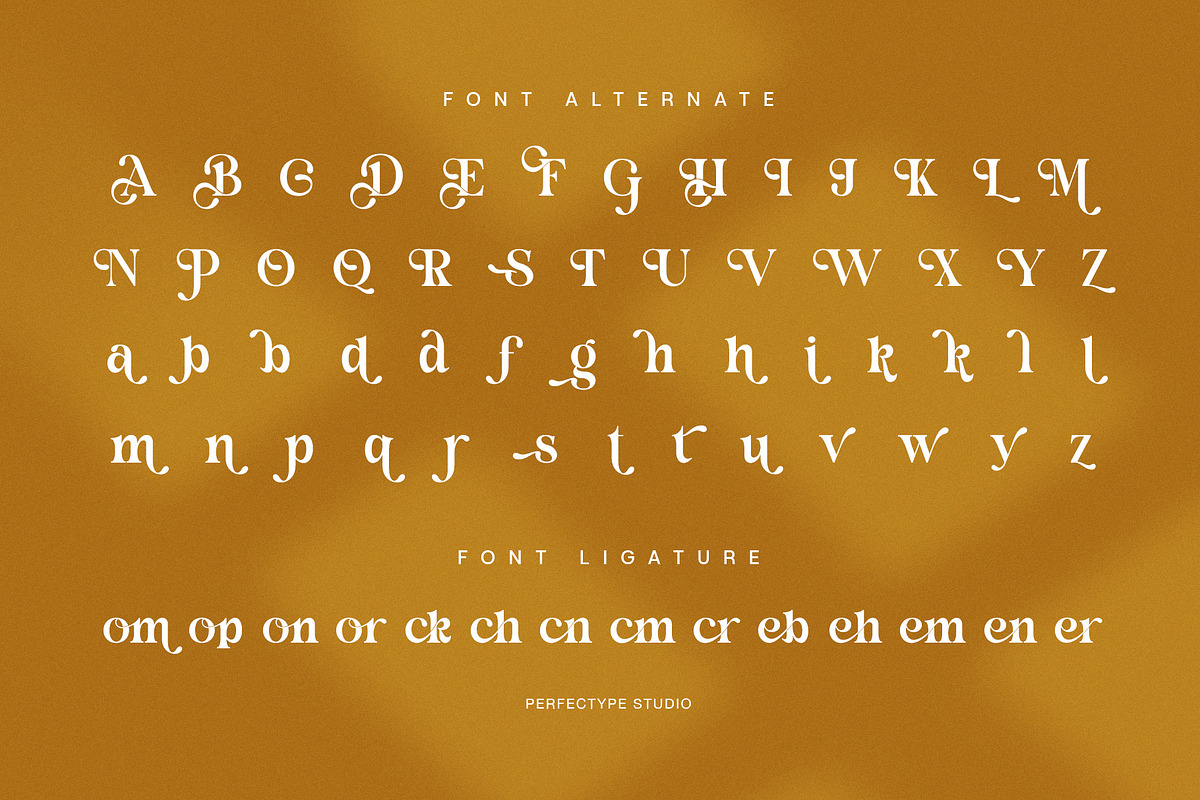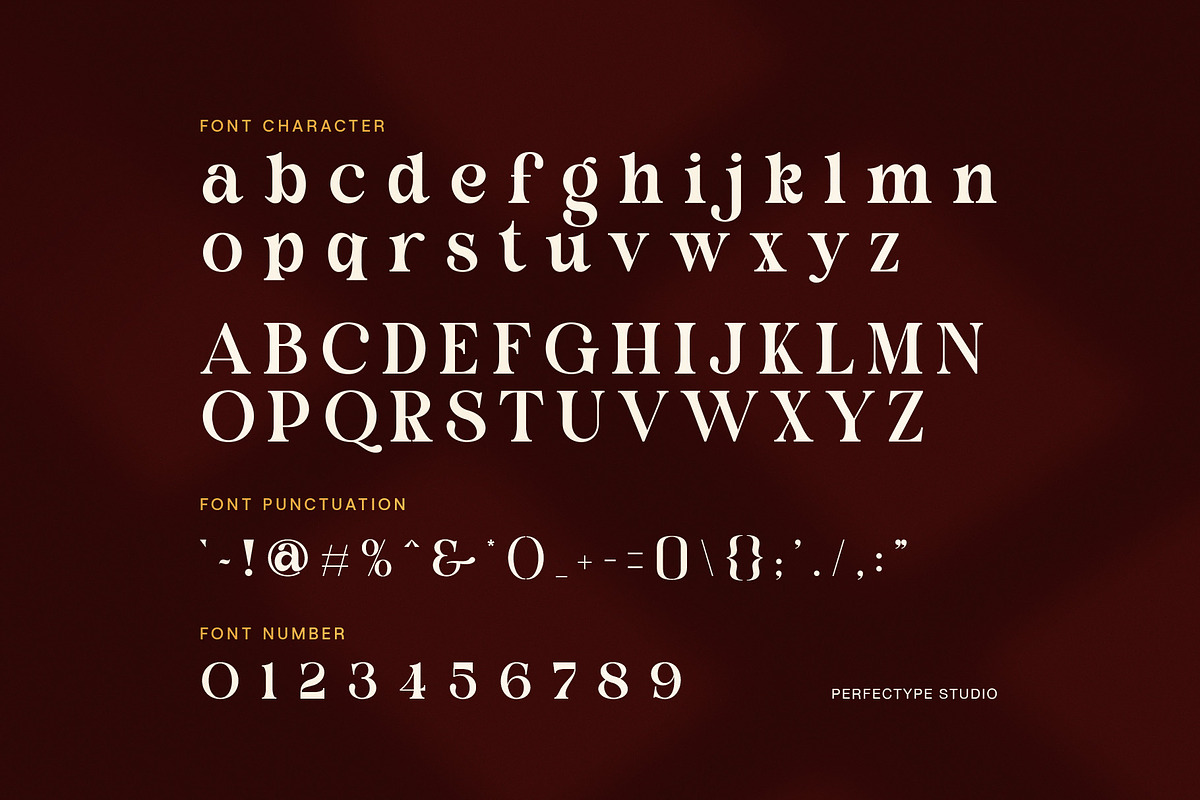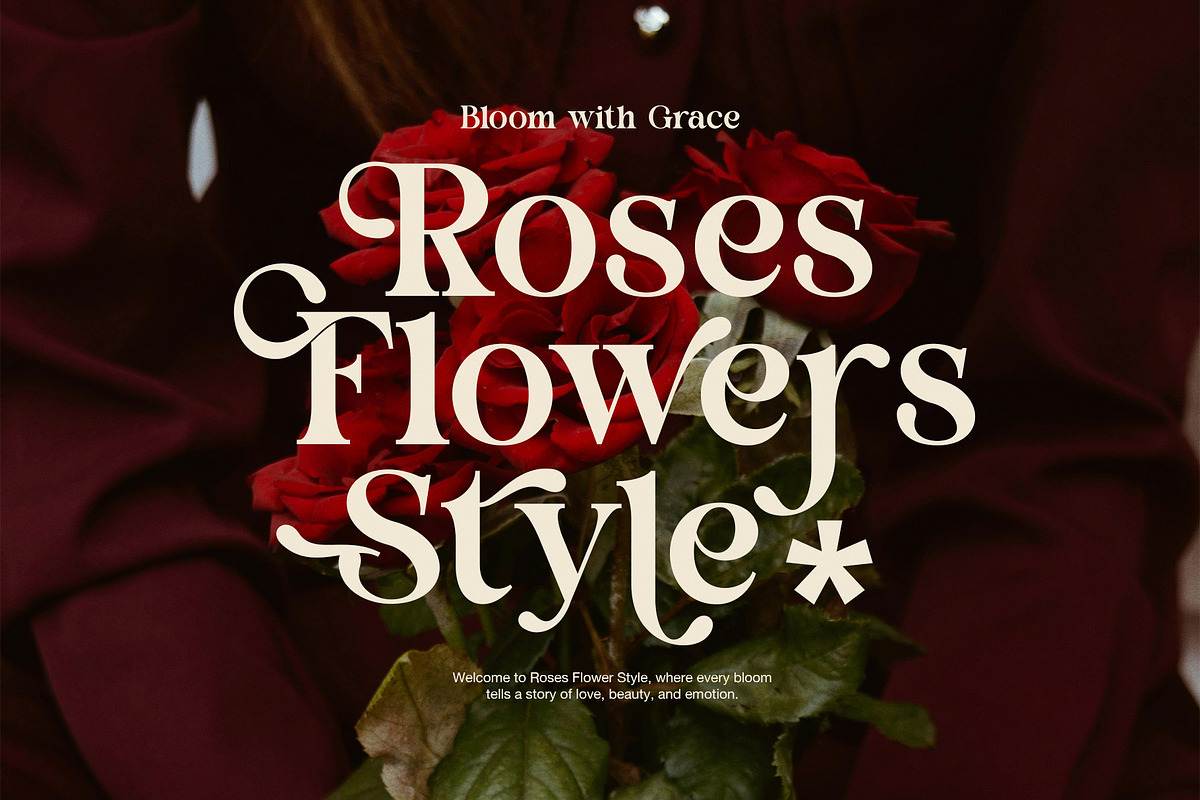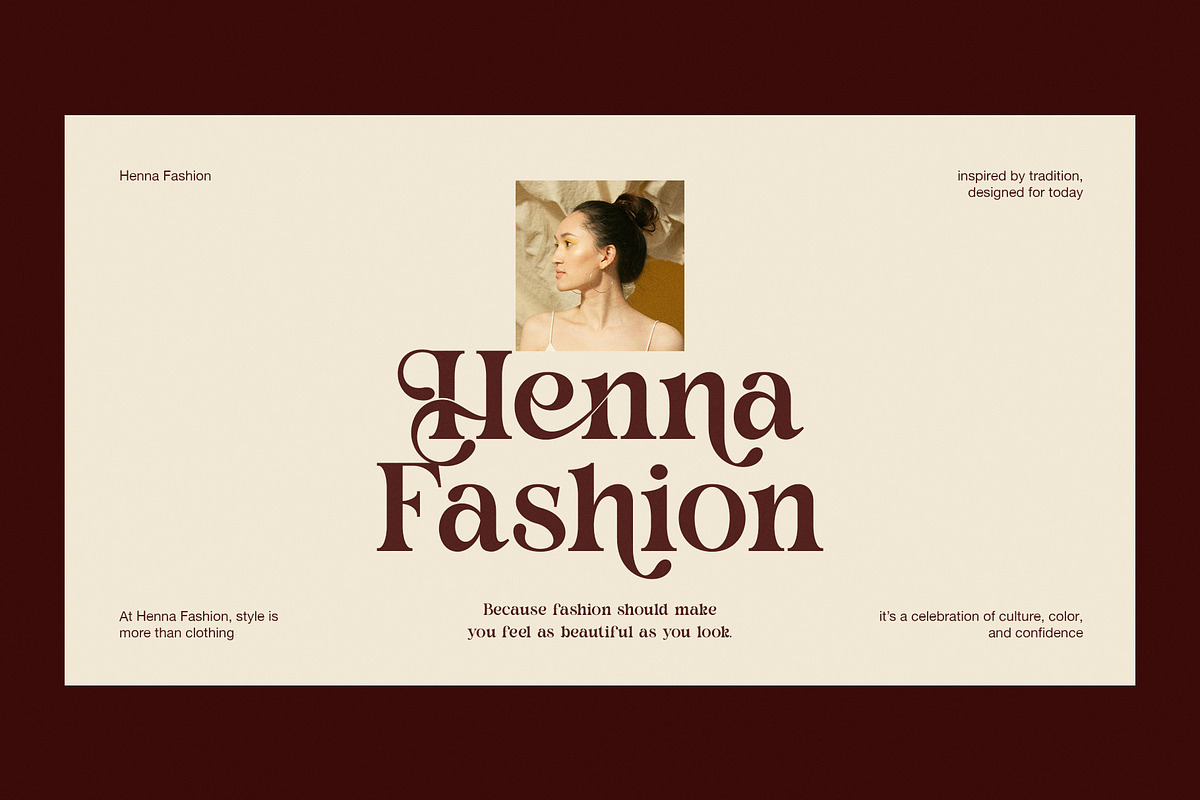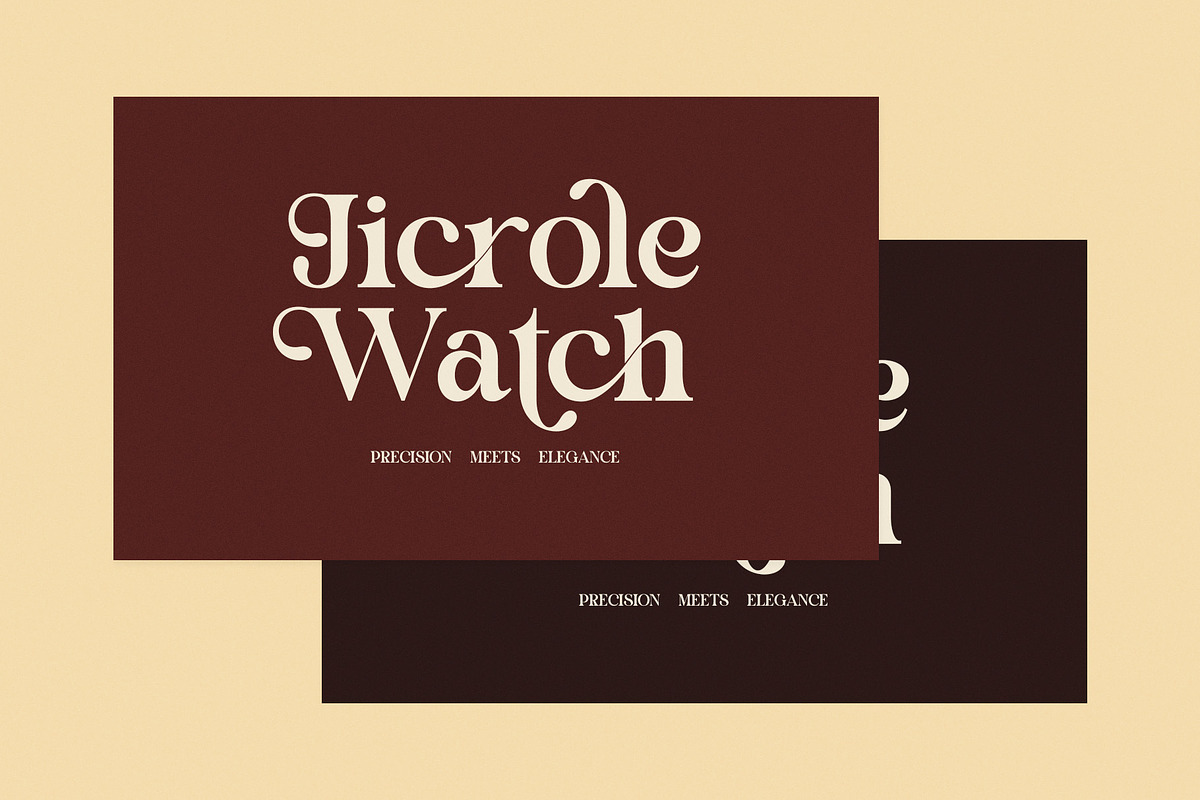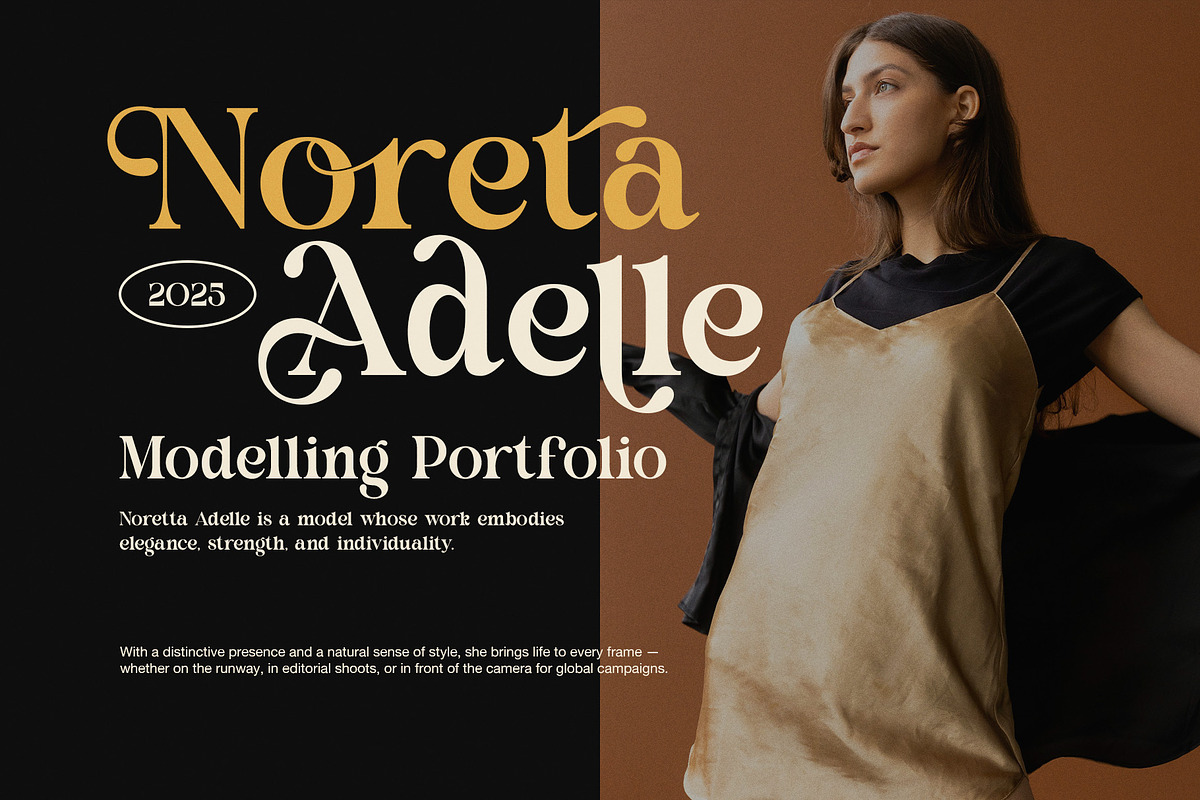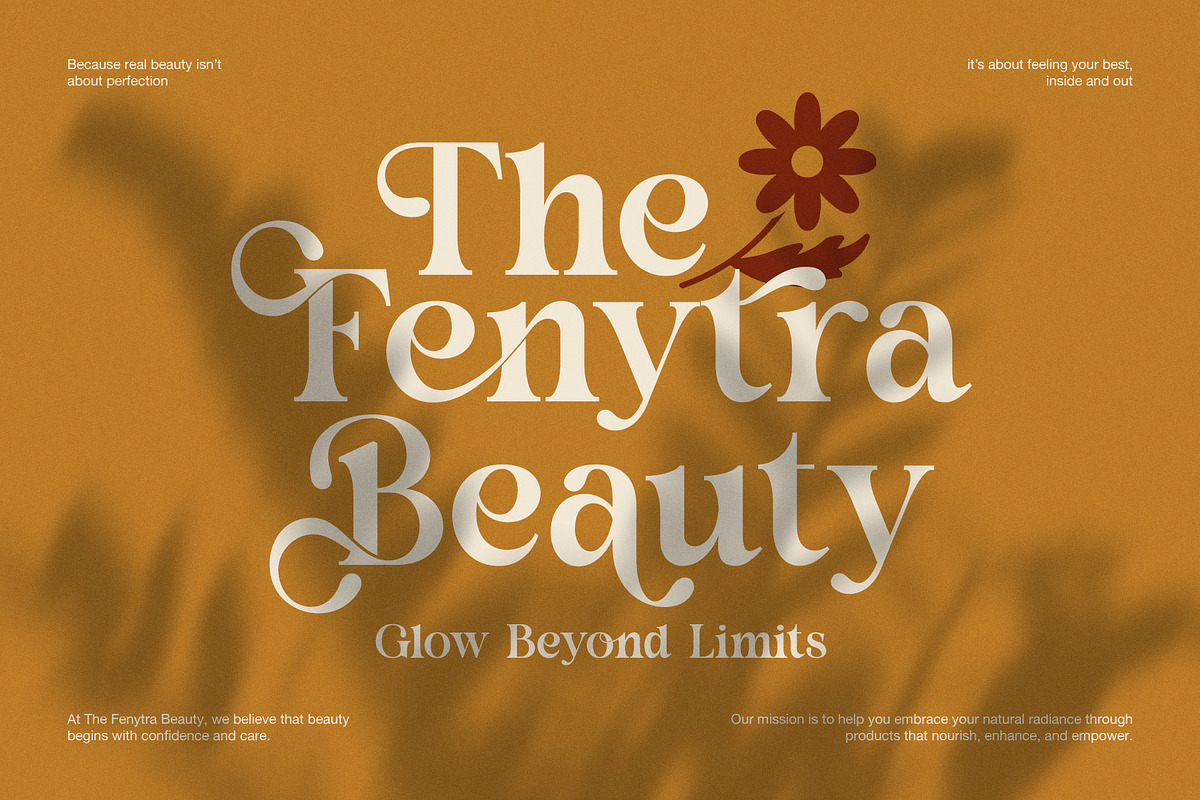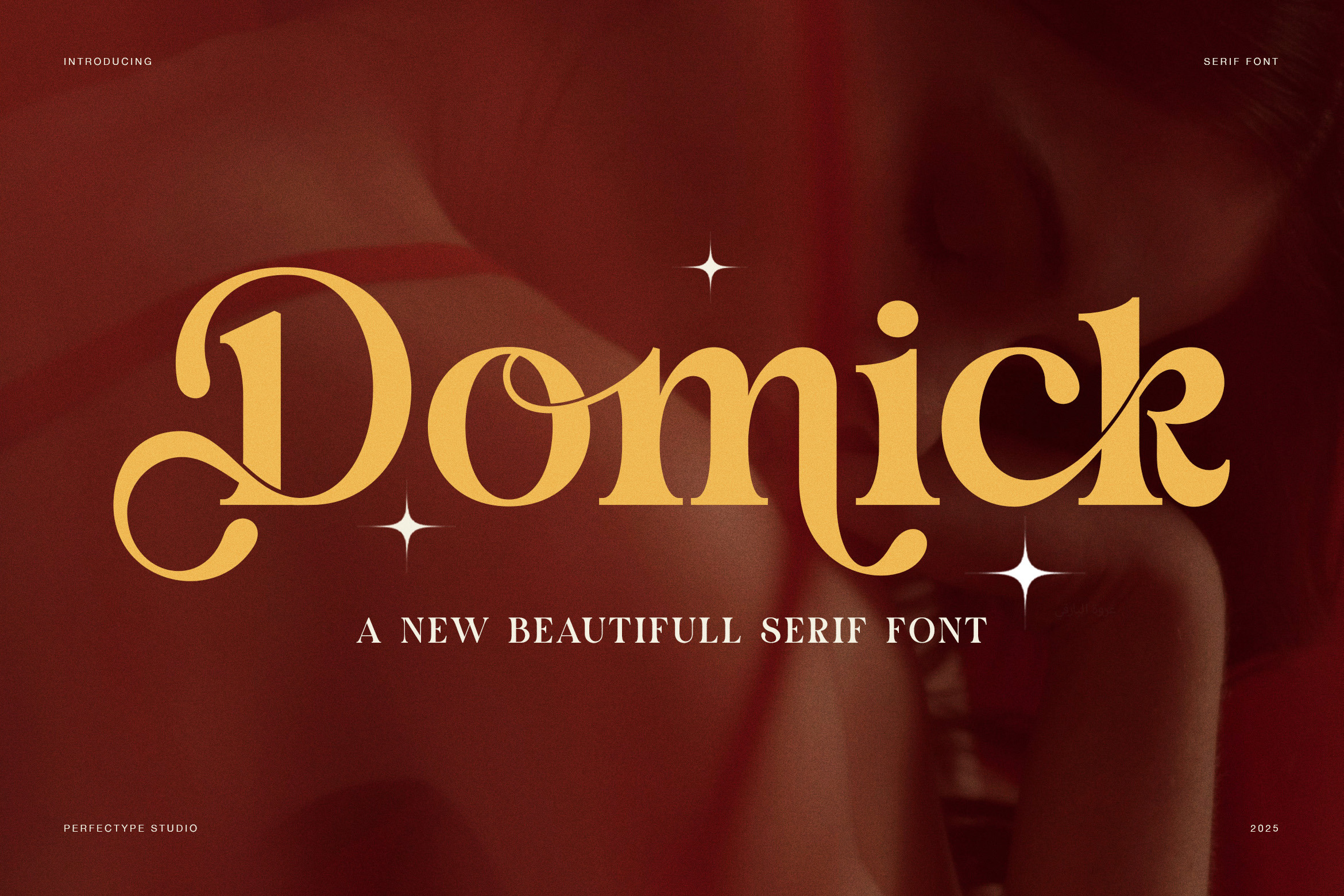
Domick – Elegant Serif Typeface
Domick is an elegant serif font designed to bring sophistication and timeless style to your creative projects. From the first look, the letterforms show smooth curves, refined contrast, and a classic structure that feels both graceful and confident. This elegant serif font enhances the visual tone of any design, making words appear polished and memorable.
Moreover, Domick suits many design needs. Use it for branding, editorial layouts, and logo design. It works well for magazine covers, wedding invitations, and premium product packaging. Because the characters have clear shapes and balanced spacing, this font holds up even at small sizes. At the same time, its refined details elevate headlines and titles with a sense of luxury.
In addition, Domick performs beautifully in both print and digital work. Designers who value precision and clarity can rely on this typeface for website headers, social media visuals, and promotional graphics. Its classic serif roots give it a high-end feel, while its modern touches keep it fresh and relevant.
Furthermore, Domick helps designers work with confidence. The font includes uppercase and lowercase letters, numerals, punctuation, and multilingual support. As a result, you can create cohesive text blocks without switching typefaces. Also, the elegant serif design pairs well with many complementary sans serif fonts when you need a strong font pairing.
Domick speaks to designers who want beauty and readability in one typeface. It supports daily creative work while adding expressive character. Therefore, it works perfectly for personal projects and professional clients alike. Each letter reflects thoughtful design choices that prioritize balance and aesthetic appeal.
✨ Why Choose Domick Elegant Serif Font?
Elegant and timeless serif style
Smooth curves with refined contrast
Strong readability for many uses
Great for branding and logos
Ideal for editorial and print layouts
Works for digital and social graphics
Multilingual support included